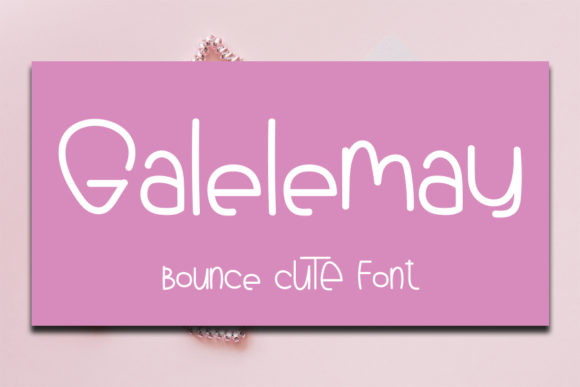
Step into the world of typography perfection with Galelemay Font, the ultimate display font collection meticulously crafted by FL Space. Experience the harmonious blend of charm and elegance, where every letter dances with poise and grace.
Designed to captivate and inspire, Galelemay Font transcends the ordinary, transforming your digital creations into masterpieces of visual art. Whether you're a seasoned designer or just starting your creative journey, this font family will unleash your imagination and unveil a realm of limitless possibilities.
With Galelemay Font, you'll discover a font that feels equally at home in grand headlines and intimate paragraphs. Its carefully balanced strokes command attention, effortlessly elevating your designs to new heights of sophistication.
Born from the desire to create a font that resonates with both heart and mind, Galelemay Font seamlessly adapts to your creative vision. Its versatility knows no bounds, making it the perfect choice for web design, print media, moving images, and beyond.
Imagine the impact of your website's headlines, the allure of your marketing materials, and the captivating charm of your social media posts, all adorned with the timeless beauty of Galelemay Font.
Don't settle for ordinary fonts that blend into the background. Embrace the power of Galelemay Font and watch your designs come alive with unmatched elegance and unforgettable impact.